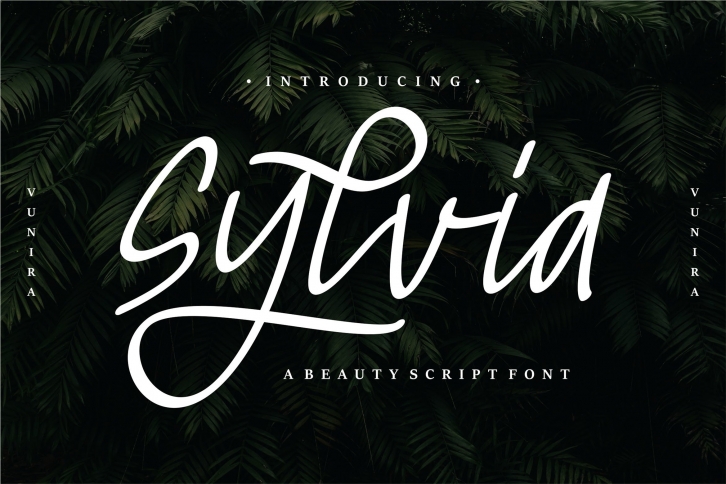
Sylvia is a great font that was designed by Vunira. Imagine the amount of combinations you can create using this font! The archive is 14.69 MB and it was released on December 10, 2020. Sylvia looks beautiful on wedding invitations, greeting cards, logos, posters, labels, t-shirt designs, logos, business cards and is perfect for use in ink or watercolor works, fashion, magazines, packaging and food menus, children's books and more!